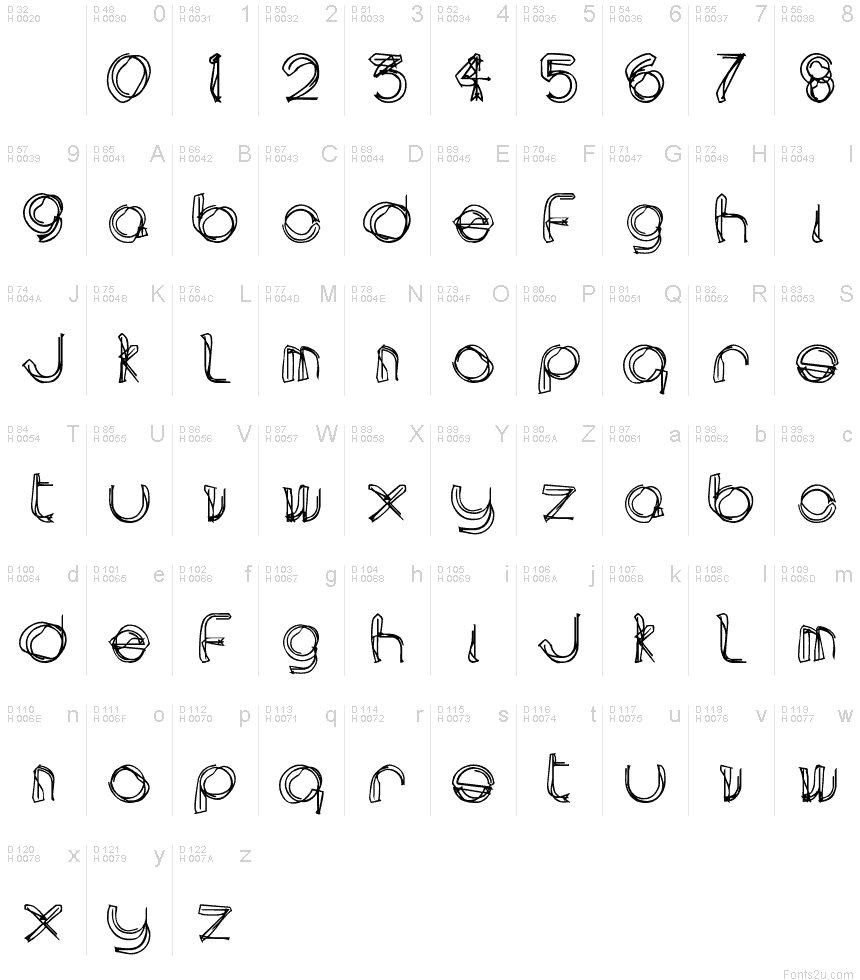
area LINEe
area LINEe font is a free experimental trash script typeface that looks like it’s been scratched onto the page with a half-dry marker. Letters loop, double back, and tangle into each other, creating a dense, chaotic texture that feels raw and hand-made rather than polished. Within the area family, this version is the loud, messy sibling—the one that turns any word into a scrawl of energy and attitude.
Using area LINEe, you get that grimy, underground vibe that’s hard to fake: it practically smells like photocopied flyers and basement shows. This free font shines on gig posters, zines, skate or streetwear branding, album covers, edgy stickers, and anti-design social graphics. Keep it large so the overlapping strokes stay legible, and pair it with a very simple sans serif for body text to let the wild linework stay in the spotlight.